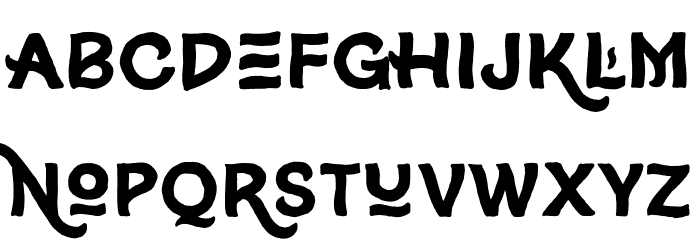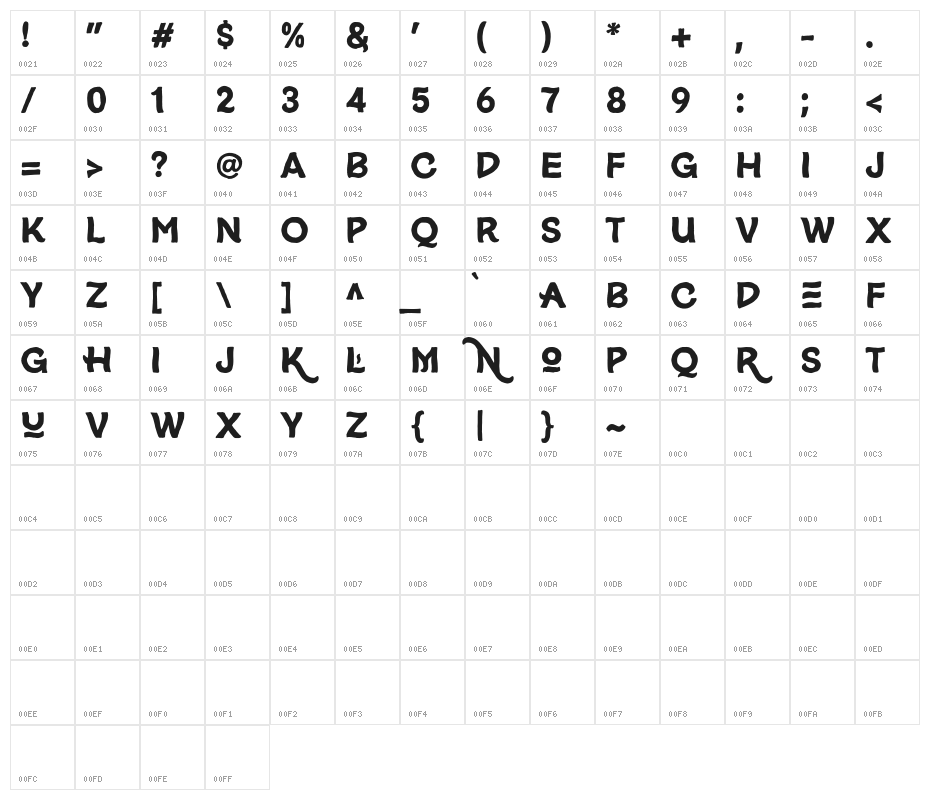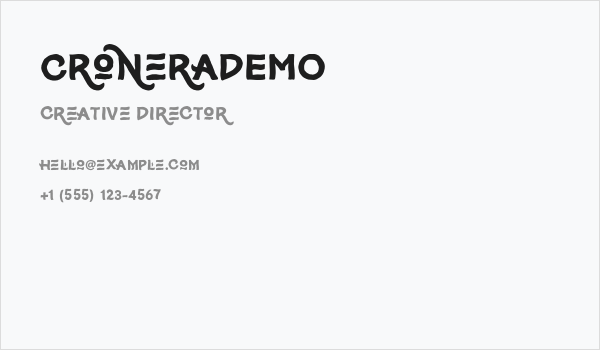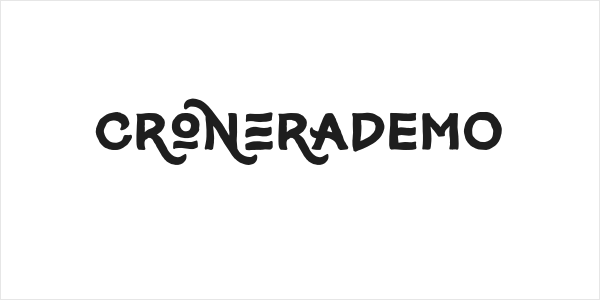
CroneraDEMO Font
This font features a bold and dynamic style with a playful, hand-drawn appearance. The characters are thick and slightly irregular, giving them a unique and artistic flair. The uppercase letters are robust and commanding, while the lowercase letters maintain a consistent style with a touch of whimsy. The numbers are equally bold, ensuring they stand out prominently. Special characters are creatively designed, adding to the overall charm of the font. The strokes are consistent in thickness, providing a cohesive look across all characters. This font is ideal for projects that require a bold statement and a touch of creativity.
A bold, hand-drawn font with a playful and artistic style.
- Font: CroneraDEMO
- Proposed Projects: Perfect for posters, logos, children's books, and creative branding projects.